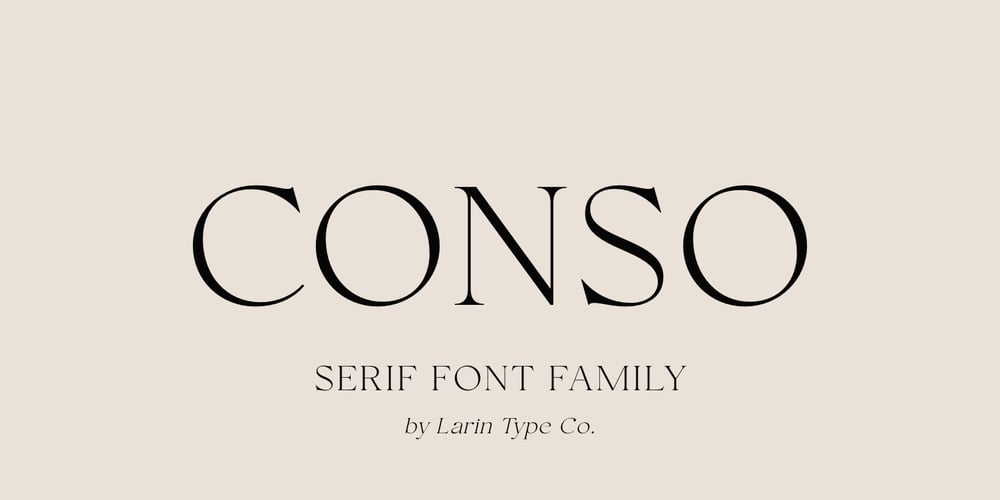
Conso Serif
Conso Serif font
Conso Serif Font Family was designed by Pavel Larin and published by Larin Type Co. Conso Serif contains 14 styles and family package options. CONSO SERIF is an elegant, modern and contrast font family. It includes upright and Italic style, each of them has seven weights from thin to bold. This is a multi-purpose font that is perfect for any project, it is contrasted, modern and easy to read. With it, you can create logos, use in advertising, packaging, book covers and magazines, headings, descriptions and much more.CONSO includes stylistic alternates with a teardrop-shaped tail for uppercase and lowercase, with them, you can change the style of your project and add personality to it and make it more stylized. This font is easy to use has OpenType features and all characters in this font have PUA encoding. Full alphabet with Uppercase and Lowercase A-z Numbers, fractions Punctuation and symbols Alternates for uppercase Alternates for lowercase